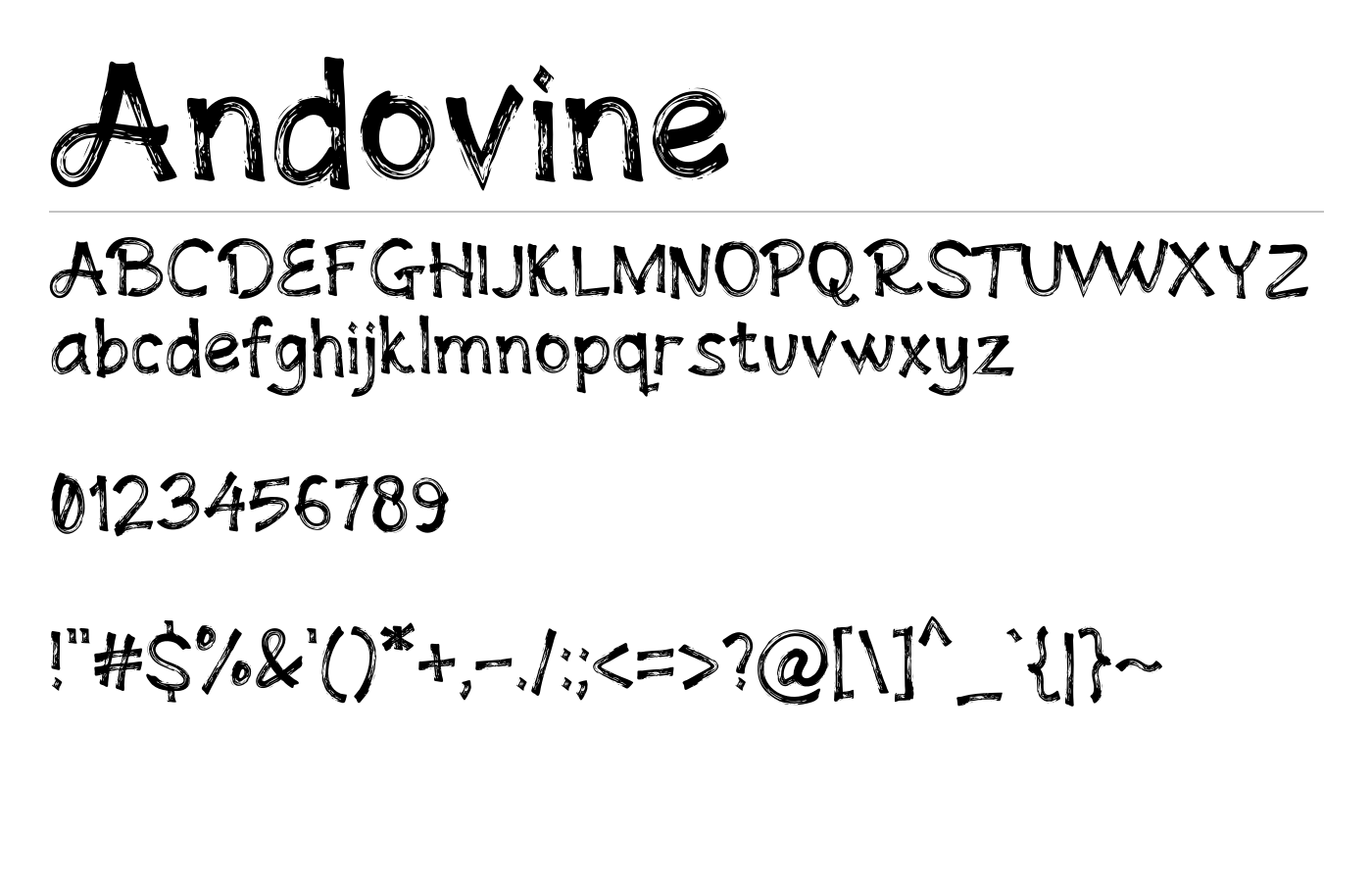
Andovine is a playful and artistic handwritten sans serif font with a sketchy, textured style that adds personality and a casual feel. Its irregular strokes and lively character shapes make it ideal for creative projects, informal branding, and eye-catching headlines where a unique, handcrafted look is desired. This font works well for designs that want to convey friendliness and creativity, such as posters, invitations, and fun editorial layouts.
Andovine Font
About Andovine Font
| Font family | Andovine Font |